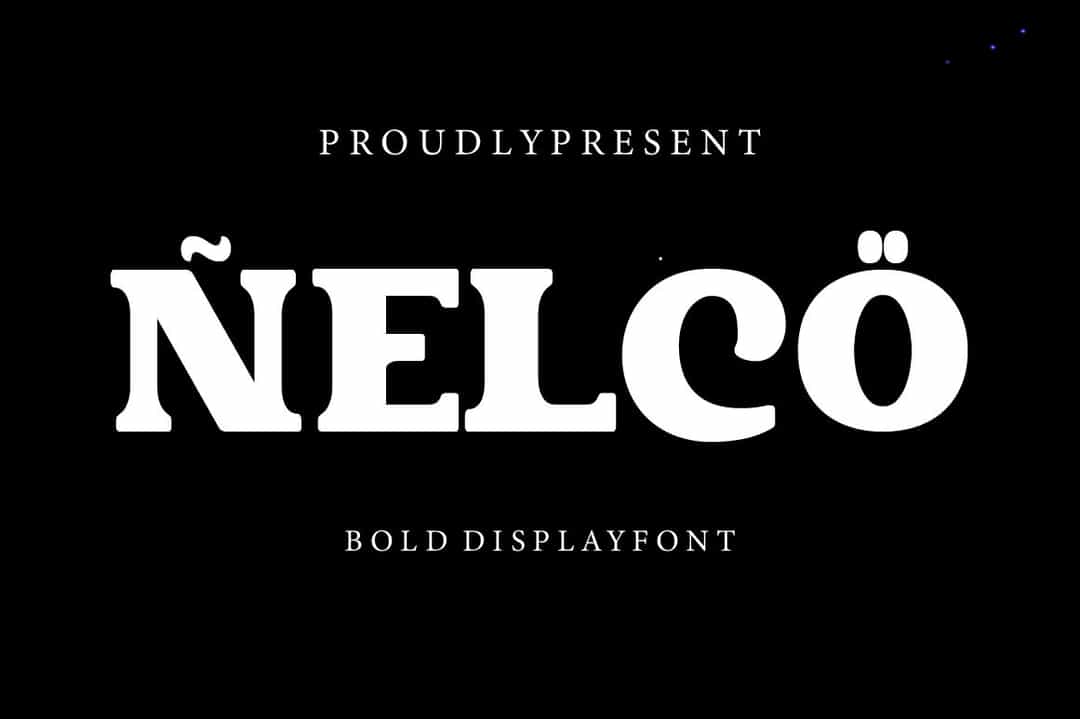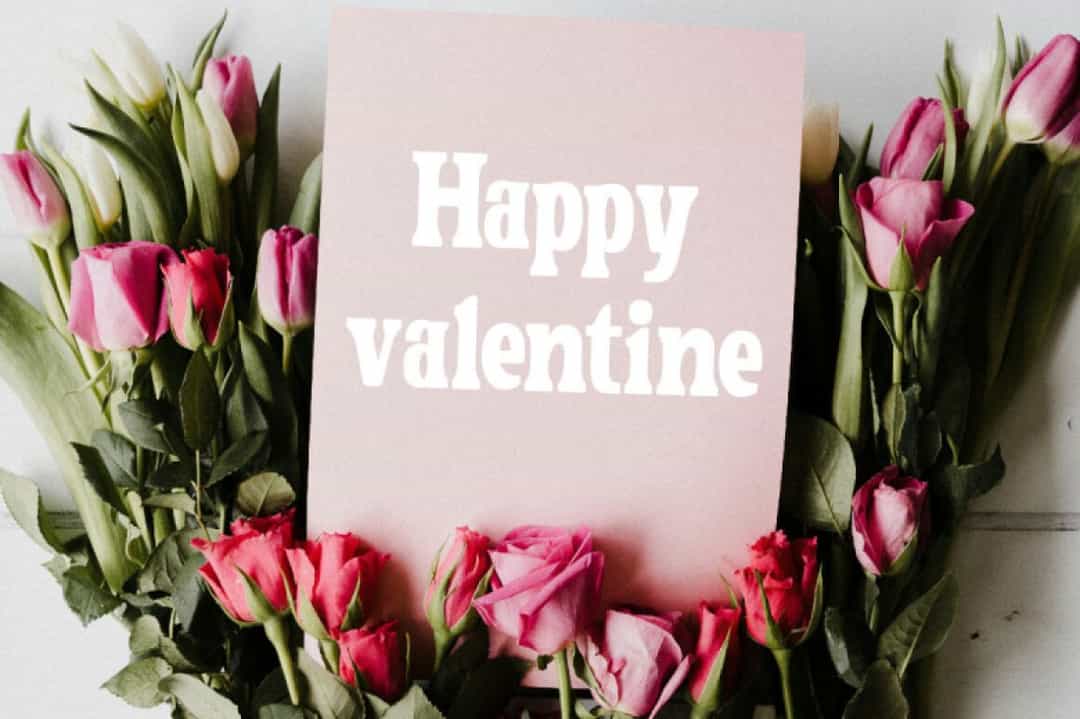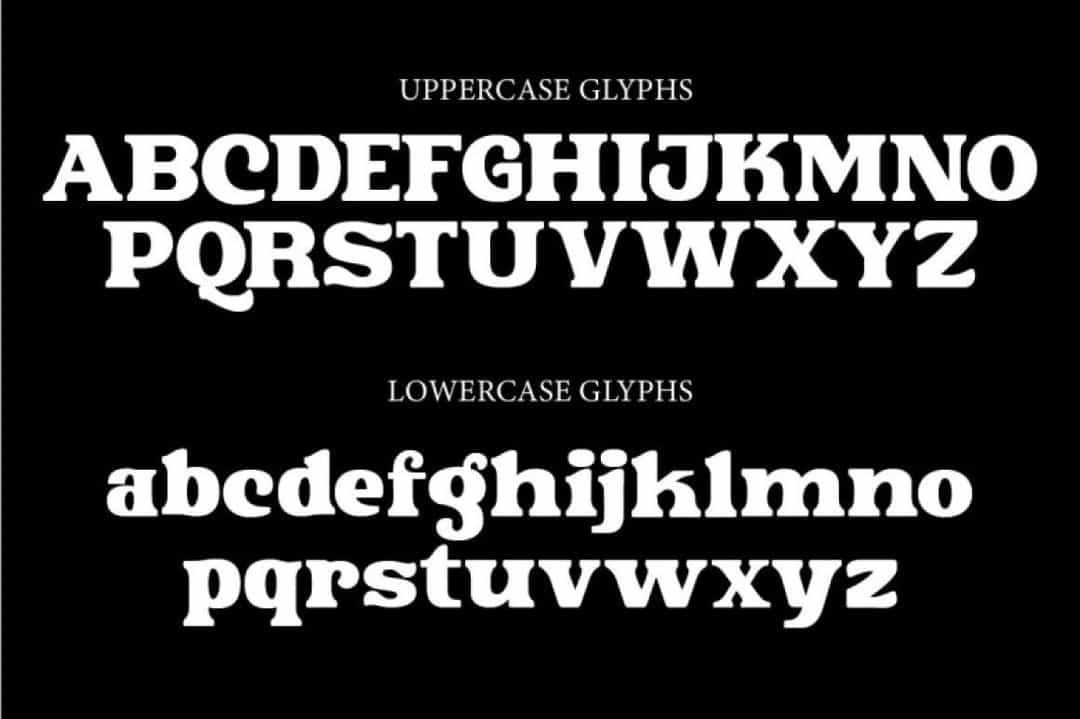
Discover Nelco Font, part of the Serif Display collection—a versatile and unique font perfect for adding a personal touch to your projects. Download it for free and enjoy crafting designs with style, from invitations to social media posts. This font is available exclusively for personal use, giving you the freedom to create without limits. Unlock your creativity with Nelco Font today!
Introduce Nelco, an impressive graphic font perfect for display. With its cool and flexible characters, Nelco can adapt easily to a range of styles allowing users to easily access all characters and styles at their disposal.